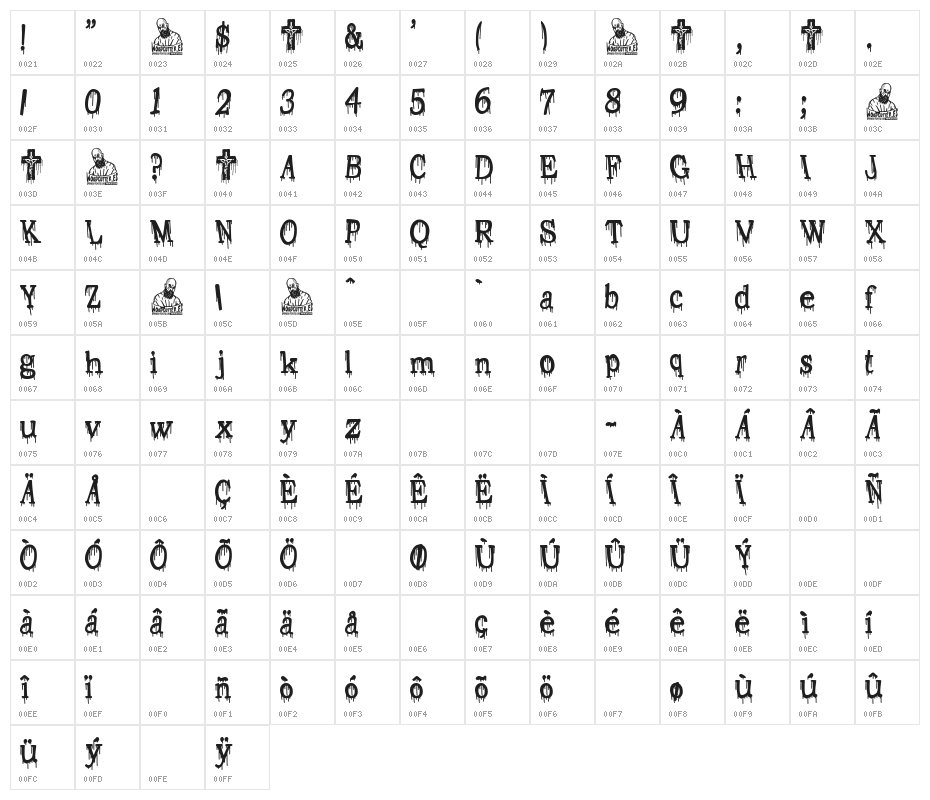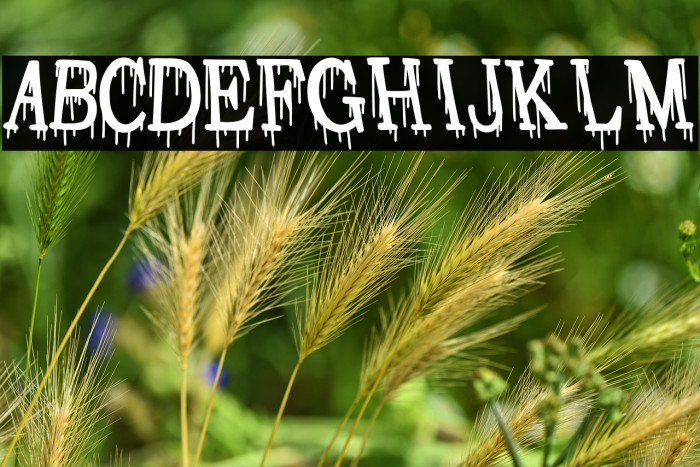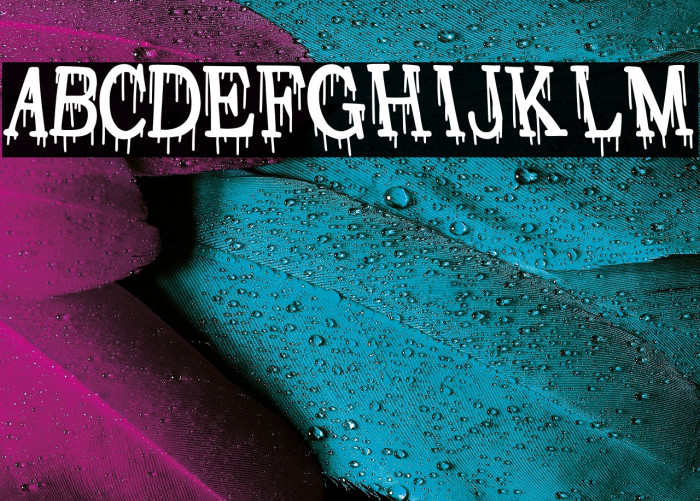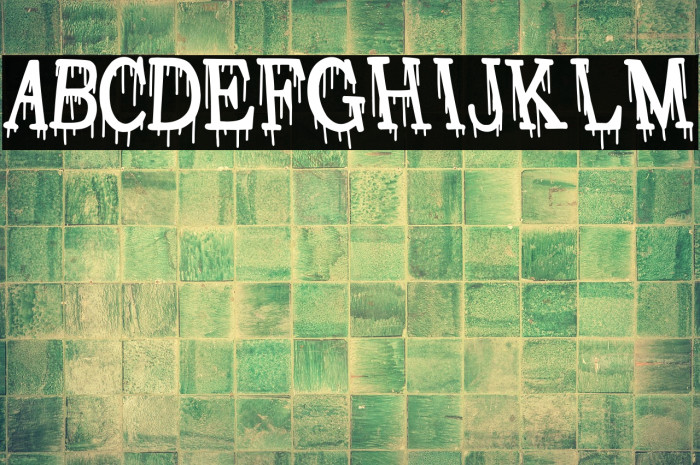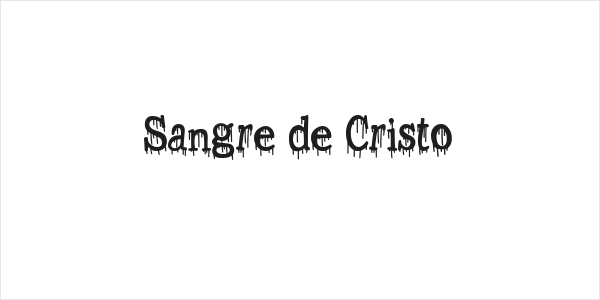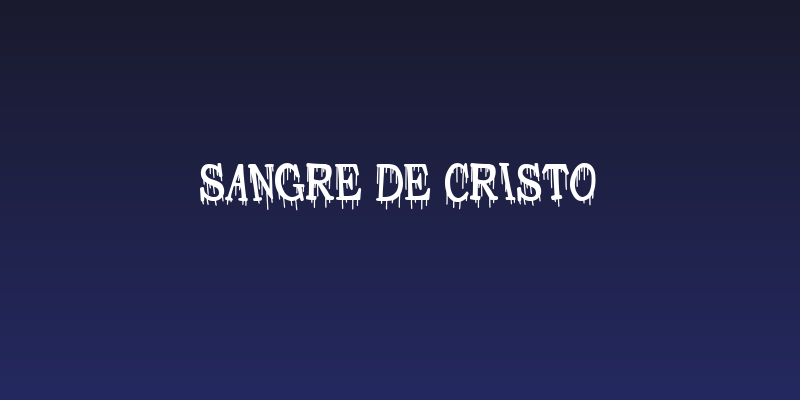
Sangre de Cristo Font
Sangre de Cristo Description
A decorative display font with a horror-inspired, dripping effect on each character, giving the impression of wet paint or blood. The letterforms are bold and slightly irregular, with pronounced serifs and uneven edges, contributing to a distressed and eerie appearance.
| Overall Style | Decorative, Horror, Grunge |
| Use Case | Headlines, Posters, Logos, Event Titles |
| Proposed Projects | Halloween posters, horror movie titles, haunted house flyers, themed party invitations, spooky event branding. |